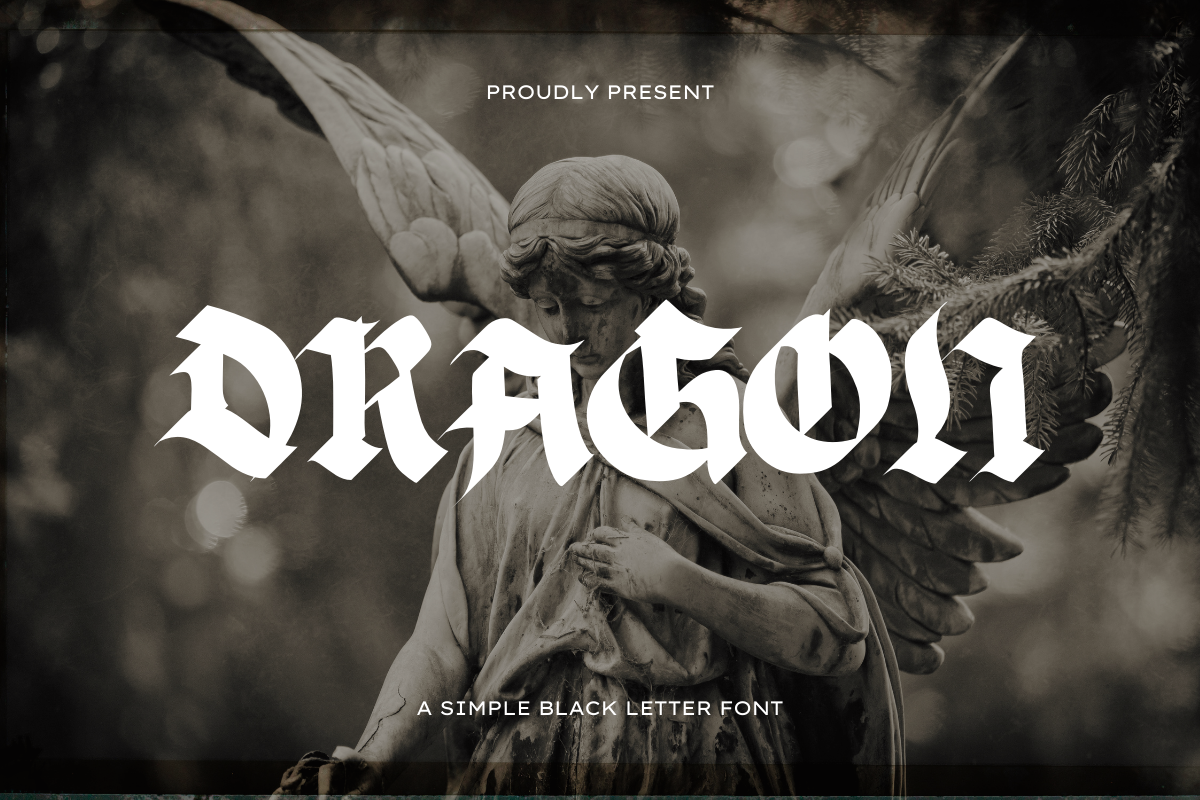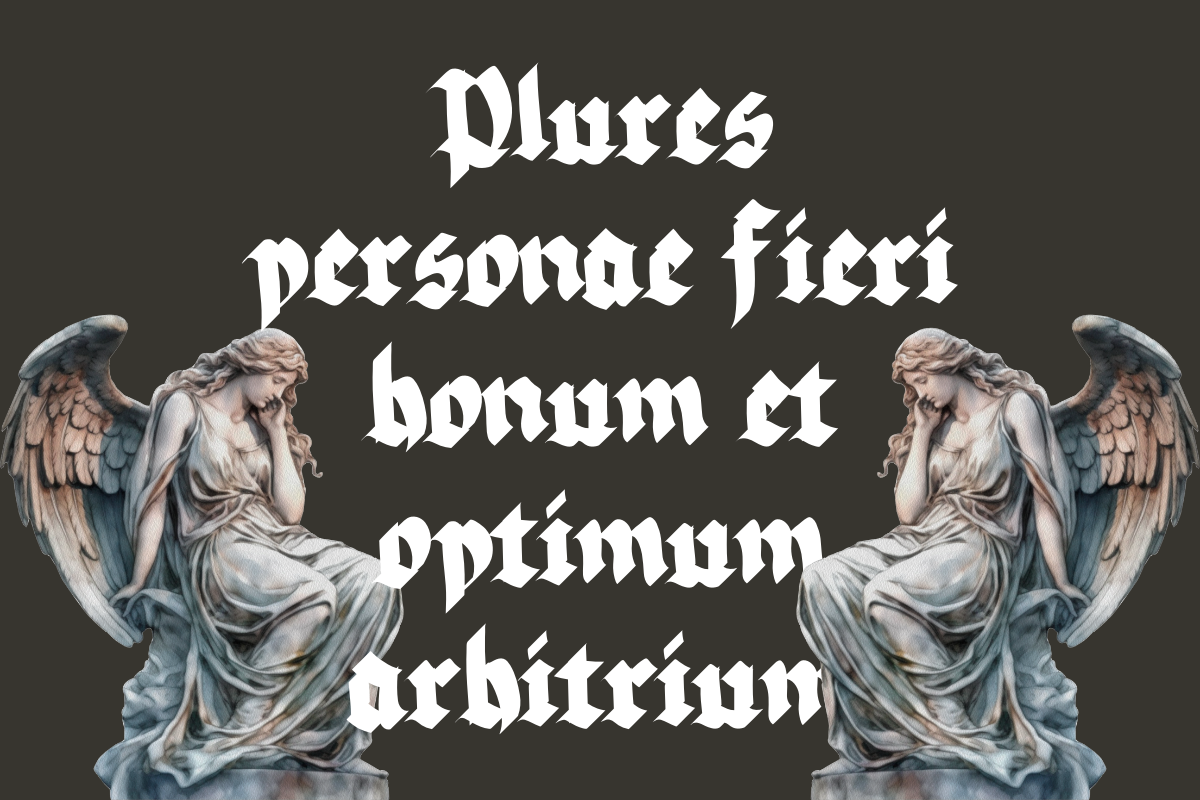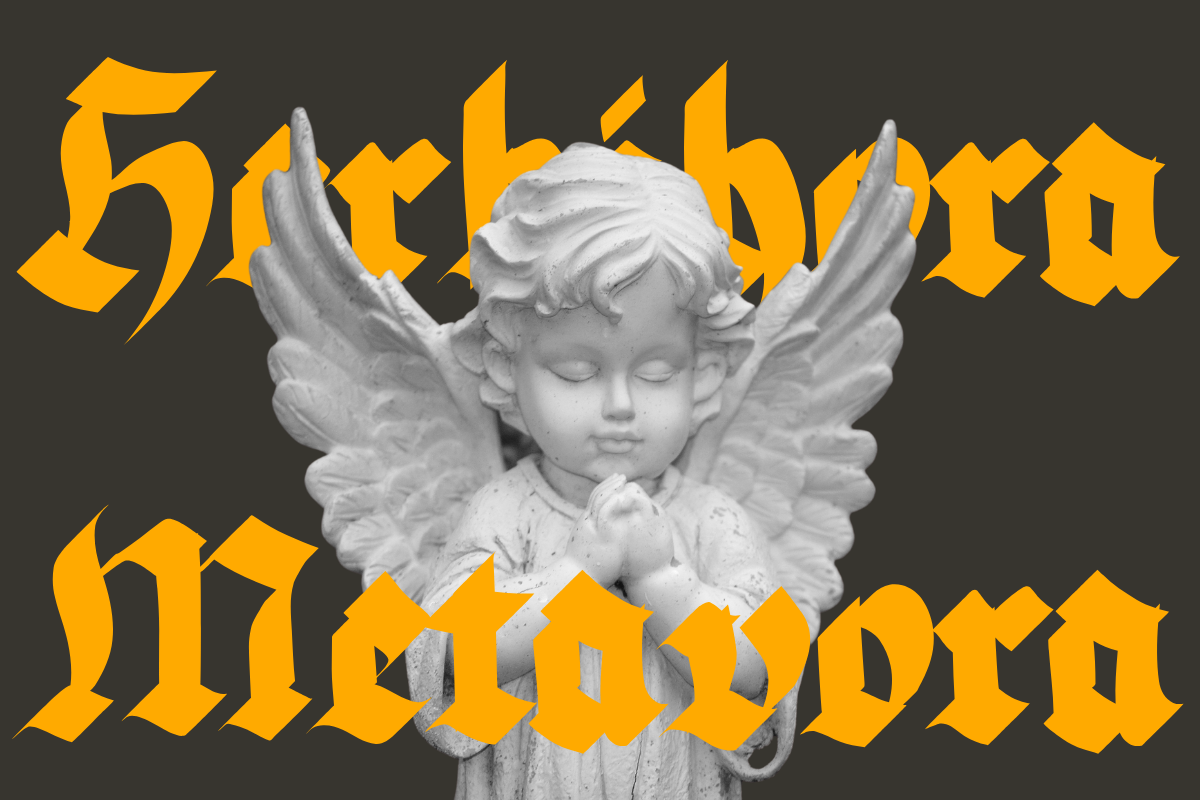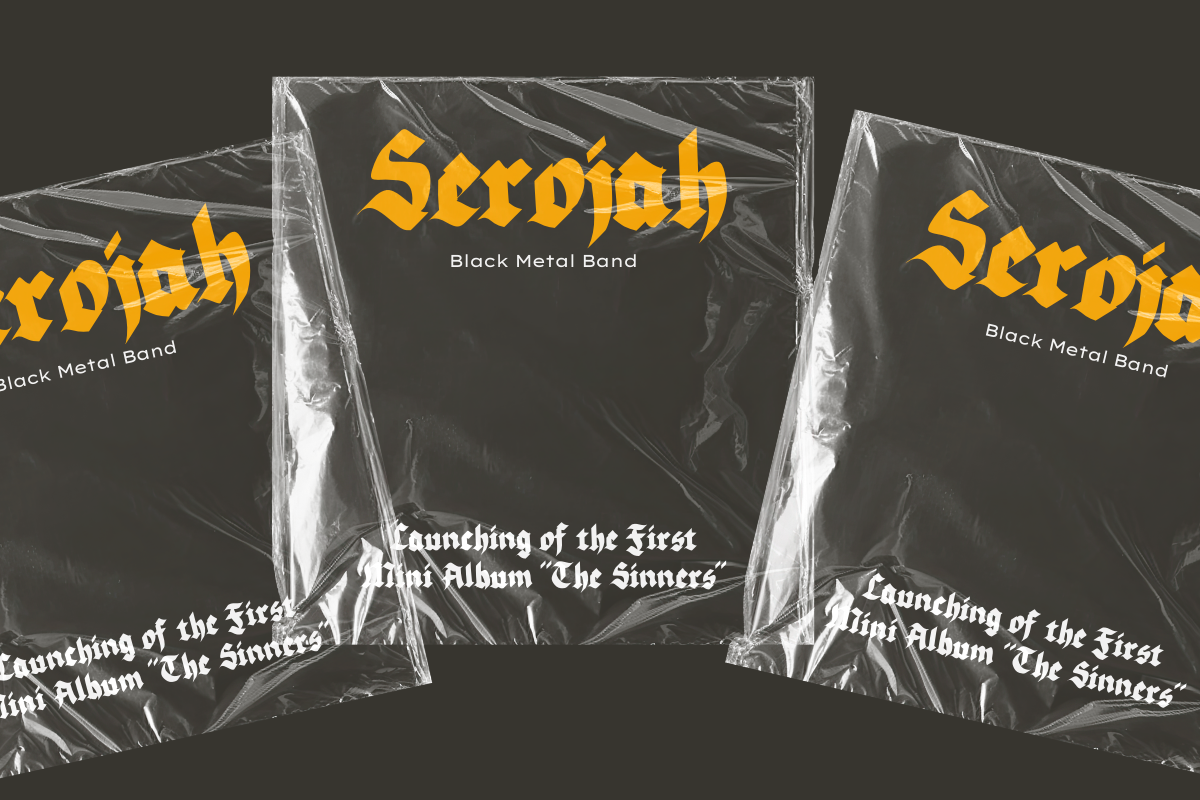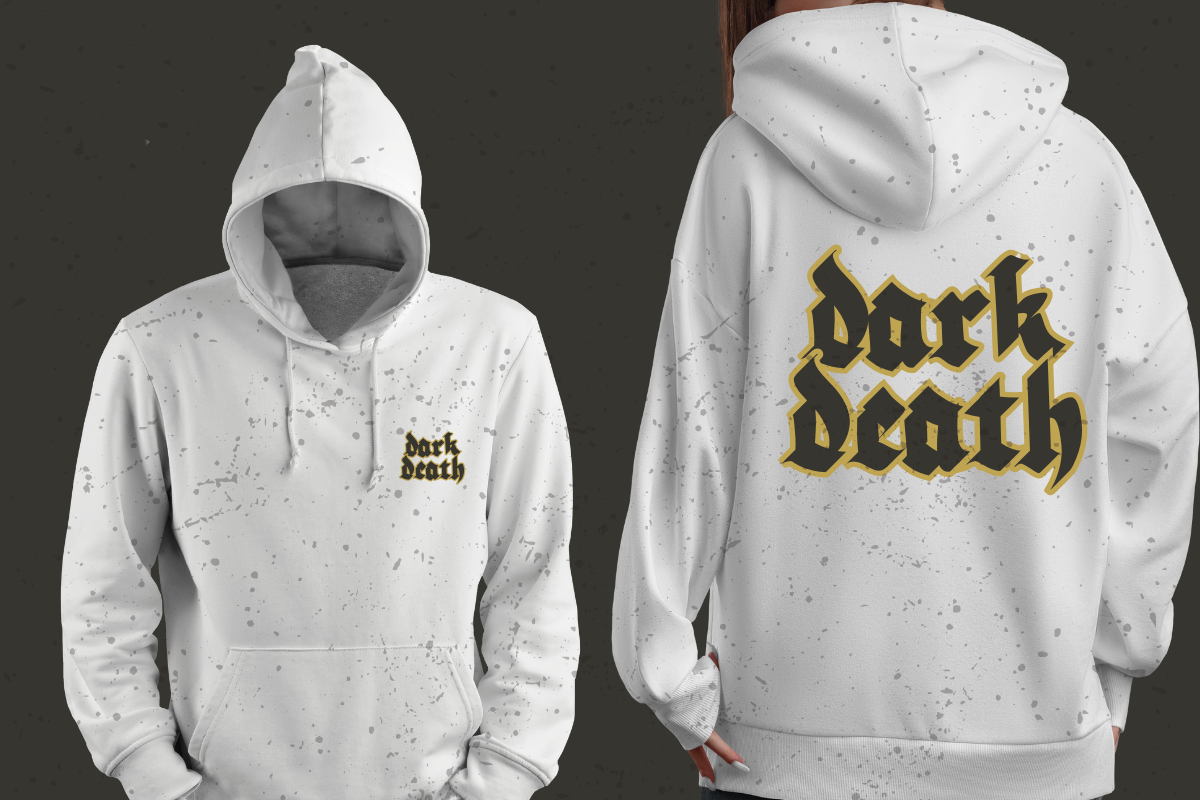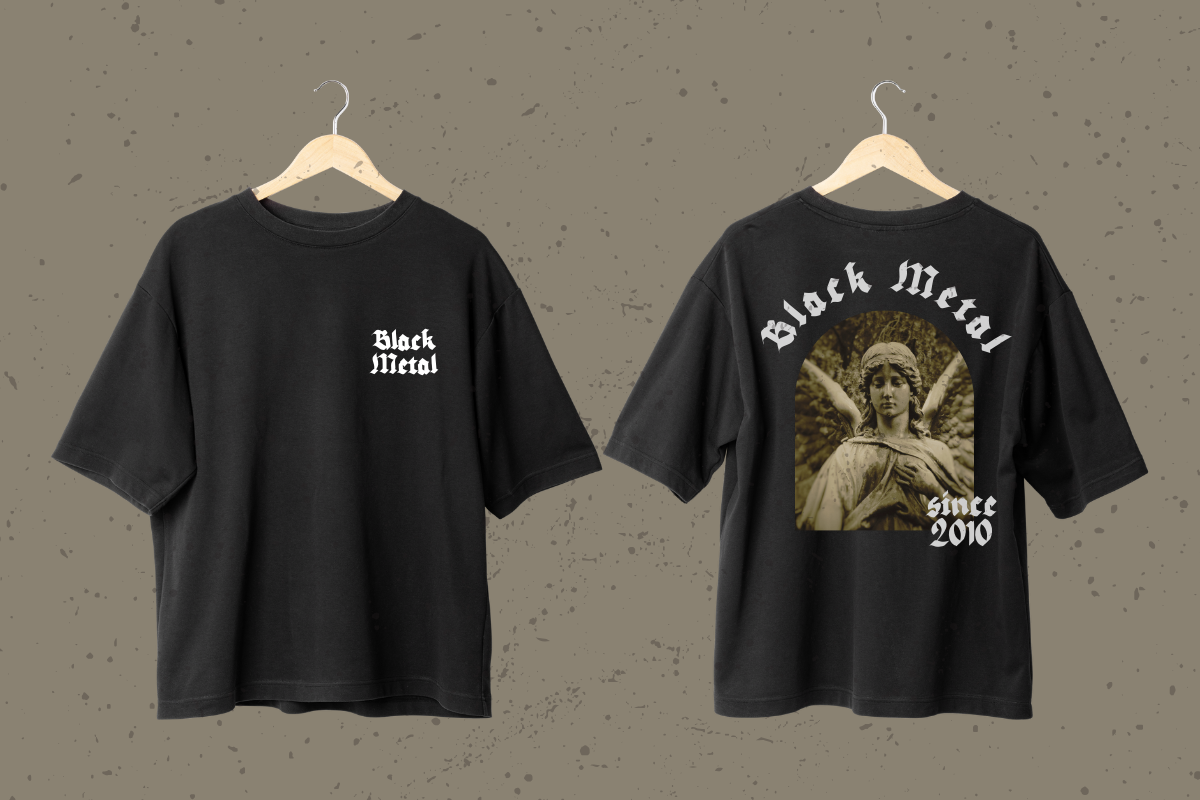
Dragon - Blackletter Font
Dragon is a simple blackletter font with a classic theme. This font is perfect for apparel, t-shirts, hoodies, logos, branding, vinyl, Halloween, posters, advertisements, products, and much more! Thank You!